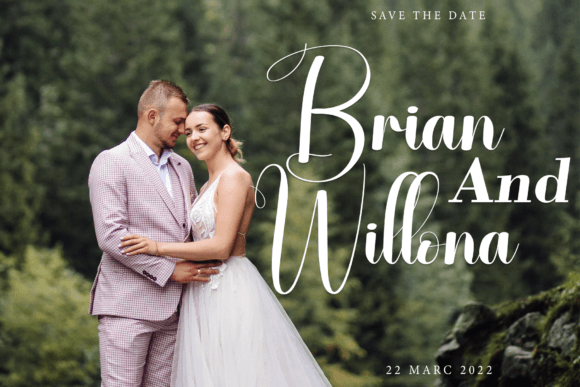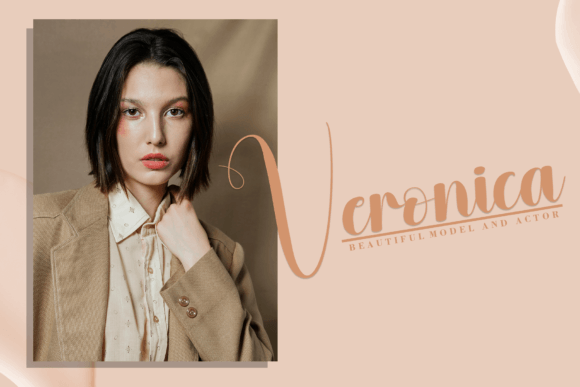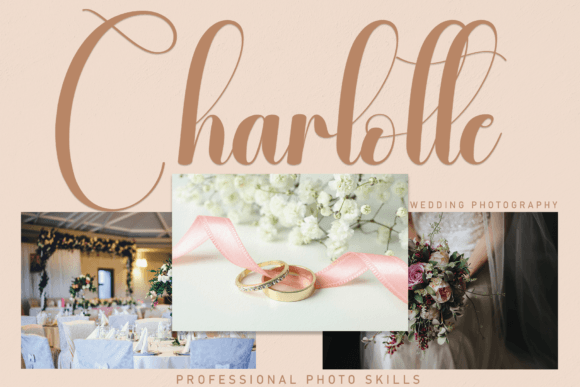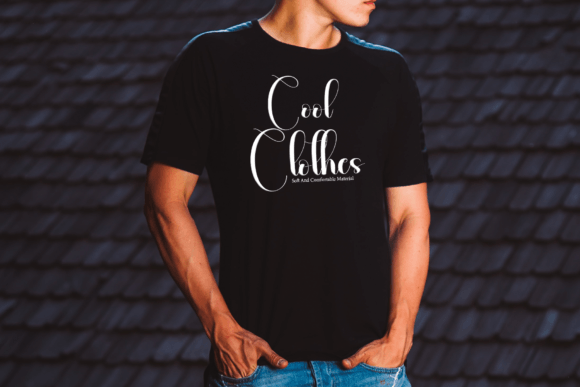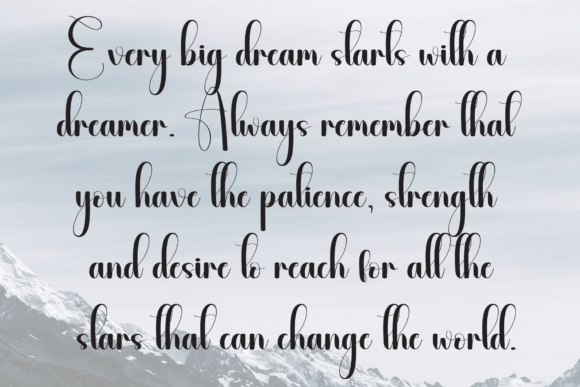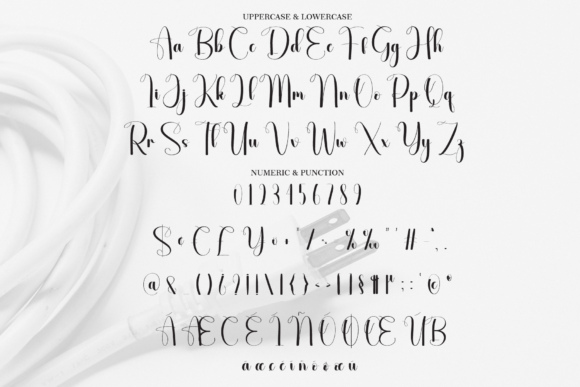
Introduction to Plugins Font
Have you ever stared at a blank canvas, trying to conjure up the perfect design for your next creative project? It’s a feeling we’ve all been there – the blank page staring back at us, begging for inspiration. That’s where the right design resource can make all the difference. For designers looking to add a touch of personality to their work, the Plugins Font is a game-changer.
This sweet and friendly handwritten font is perfect for adding a fun and fresh touch to your designs. From wedding invitations to cards, the Plugins Font is a versatile and high-quality design resource that’s sure to elevate your work. And the best part? It’s available for free download, complete with a transparent background for seamless integration into your designs.
Whether you’re a seasoned designer or just starting out, the Plugins Font is a valuable addition to your toolkit. With its unique and playful style, it’s the perfect way to add a little extra creativity to your designs.
Key Features of Plugins Font
- High-quality vector design with transparent background, ideal for creative projects and designs
- Resolution-independent design, scalable to any size without losing quality
- Perfect for designers and artists working on various design resources, from logos to graphics
- Available in a range of sizes, from 10px to 1000px, to suit different design requirements
- Includes multiple style variations, allowing for creative customization and flexibility
- Designed with a focus on detail and precision, ensuring a professional finish for any project
Honest Review: Plugins Font
I recently stumbled upon Plugins Font and I must say it’s been a game-changer for my creative projects. As a designer, I’m always on the lookout for high-quality design resources that can elevate my work and make it stand out.
- ✨ The font is incredibly versatile and can be used for a wide range of creative projects, from logos to typography-based designs.
- ✨ The transparent background feature allows for seamless integration with other design elements.
- ⚠️ The font may not be suitable for use in smaller sizes or in situations where a lot of text is required.
- ⚠️ Some users may find the font a bit too modern or trendy, which may not appeal to those with more conservative design tastes.
Overall, I’m thoroughly impressed with Plugins Font and would highly recommend it to fellow designers. It’s a fantastic addition to any design arsenal and can help take your creative projects to the next level.
Plugins Font
Tips for Getting the Most Out of Plugins Font
The Plugins Font is ideal for creating professional-looking presentations, documents, and designs. It’s also great for use in social media graphics, blog posts, and other digital content.